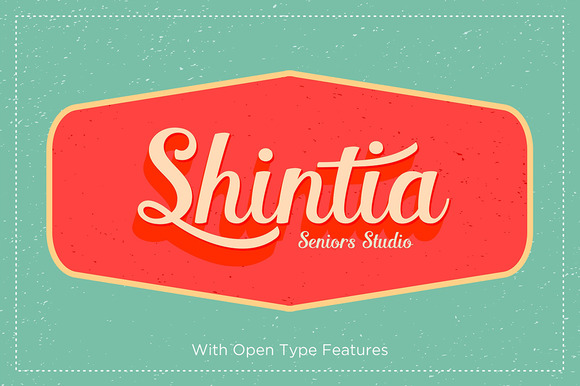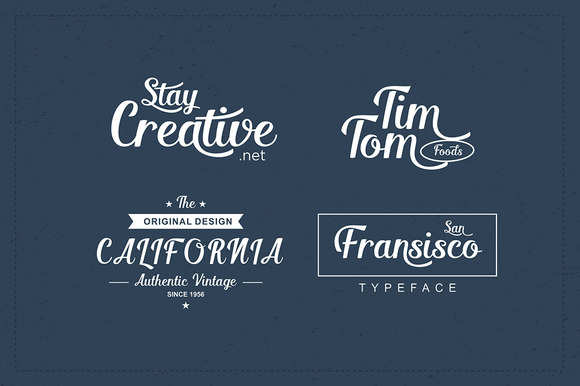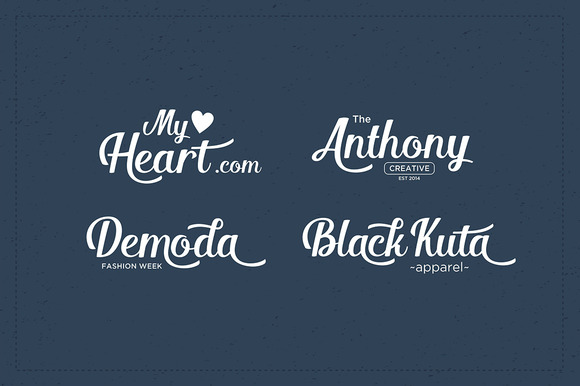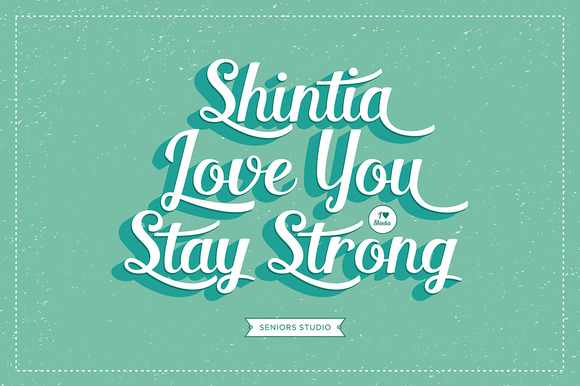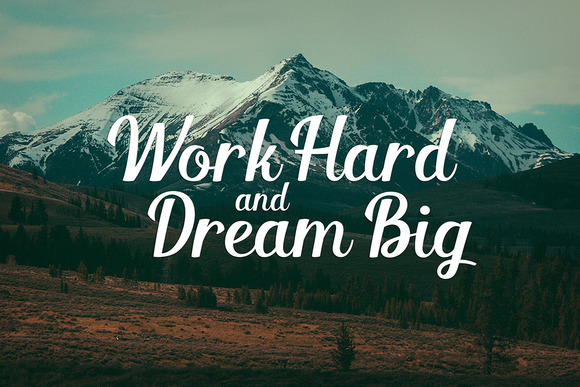
About Shintia Font
Shintia is a highly legible Script typeface. It has a bold, classic, and vintage touch. It can be used for various purposes such as headings, logos, invitations, t-shirt designs, greeting cards, posters, labels, book covers, brochures, and much more!